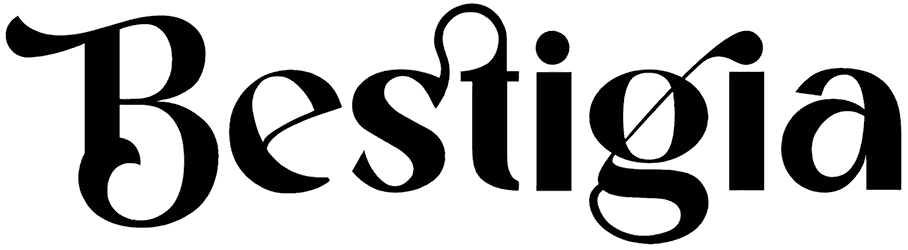
Bestigia Font
Before you create from scratch and devour your energy plus your time to knock around, take a moment to check out this serif font; we bet you review it! So, here’s how it qualifies. Click download, and then spread a classic yet artistic feel on any artwork!